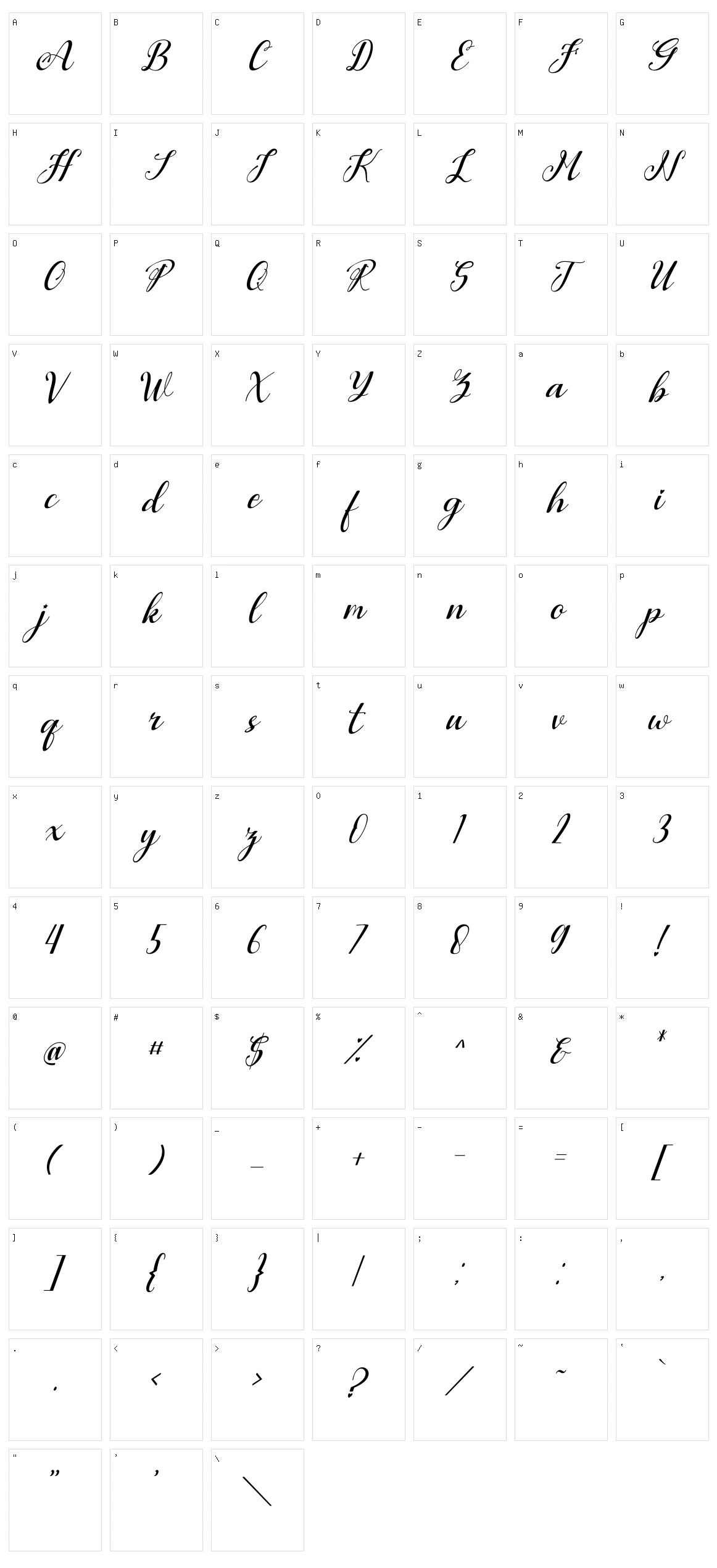
The free font Baby Lelucky is carefully designed by Supersemar Letter, showcasing a thoughtful balance of creativity and usability and falls under the Script font style. When you download the ZIP file, it contains only 48.01 KB of font files, making it lightweight and quick to download. Please review the license details below to understand permitted usage and distribution rights. If license information is not available, we recommend using this font for personal projects only or contacting the author directly for commercial usage permissions.